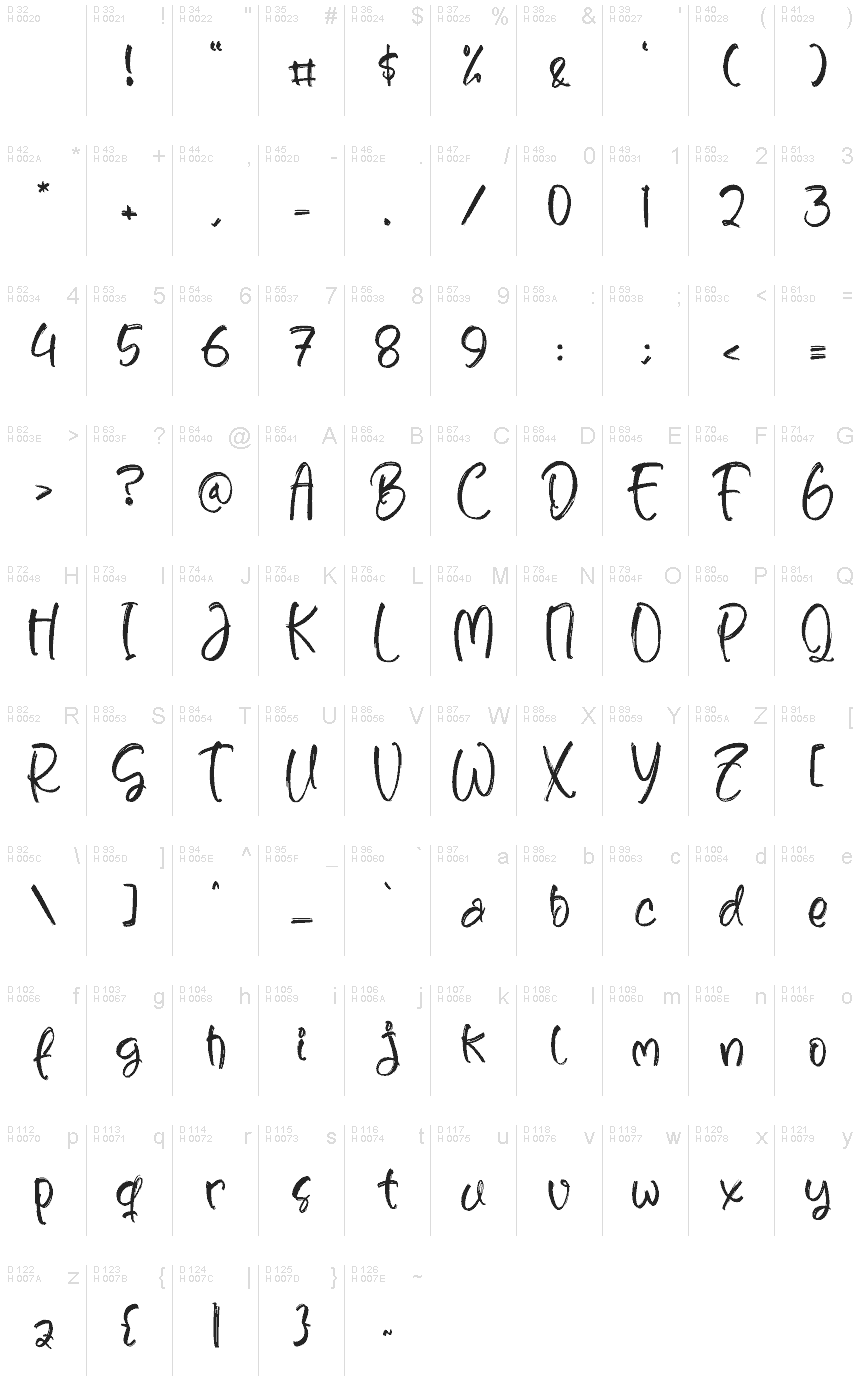
Skull Dutchman font by Letterena Studios is inspired by grunge with a handwritten feel that evokes creativity and rustic charm. The result is a brush font with an artistic flair showcased in each of its characters, one that comes in handy for both short body texts and large typography.
With an interesting name like Skull Dutchman, it becomes clear why it’s suitable for t-shirt and mug designs, stickers, tattoos, accessories, greeting cards, posters, menus and labels. Other ideas include album covers for spooky songs or even scary movies along with horror-themed books titles and covers. All this can be achieved at no cost as the font is presented to you free of charge.